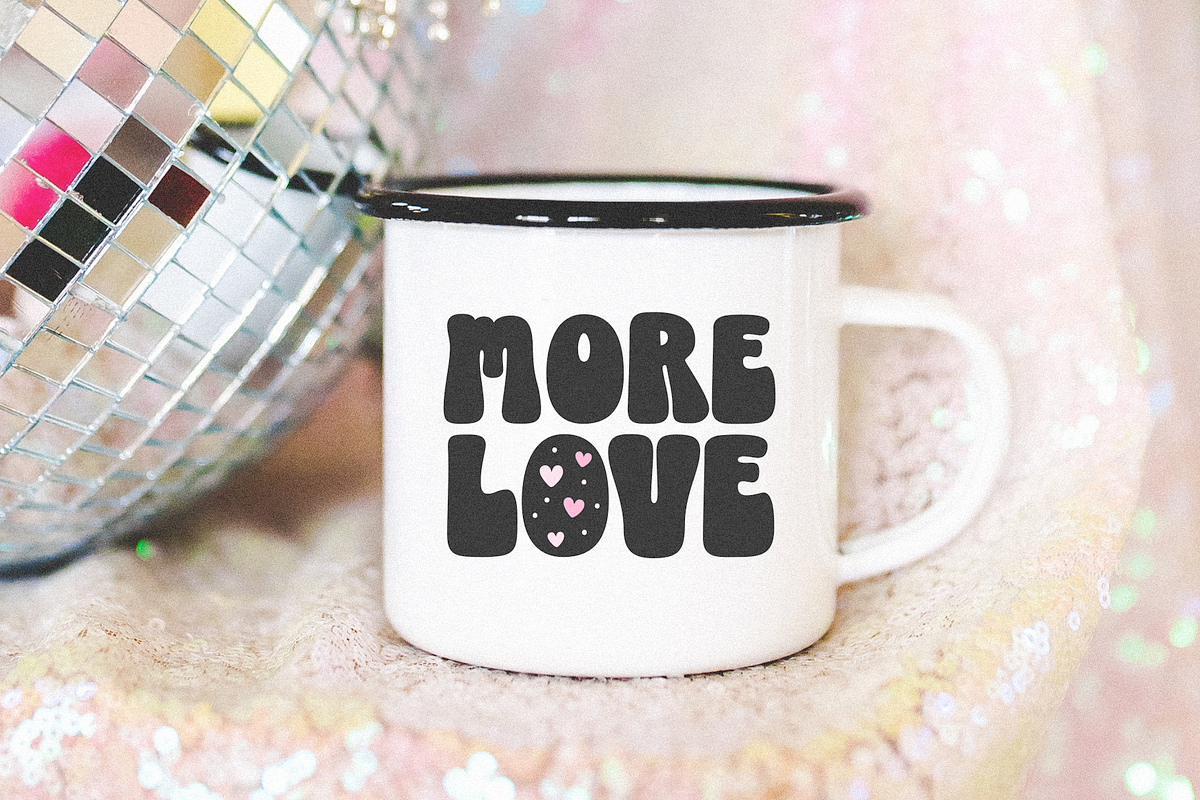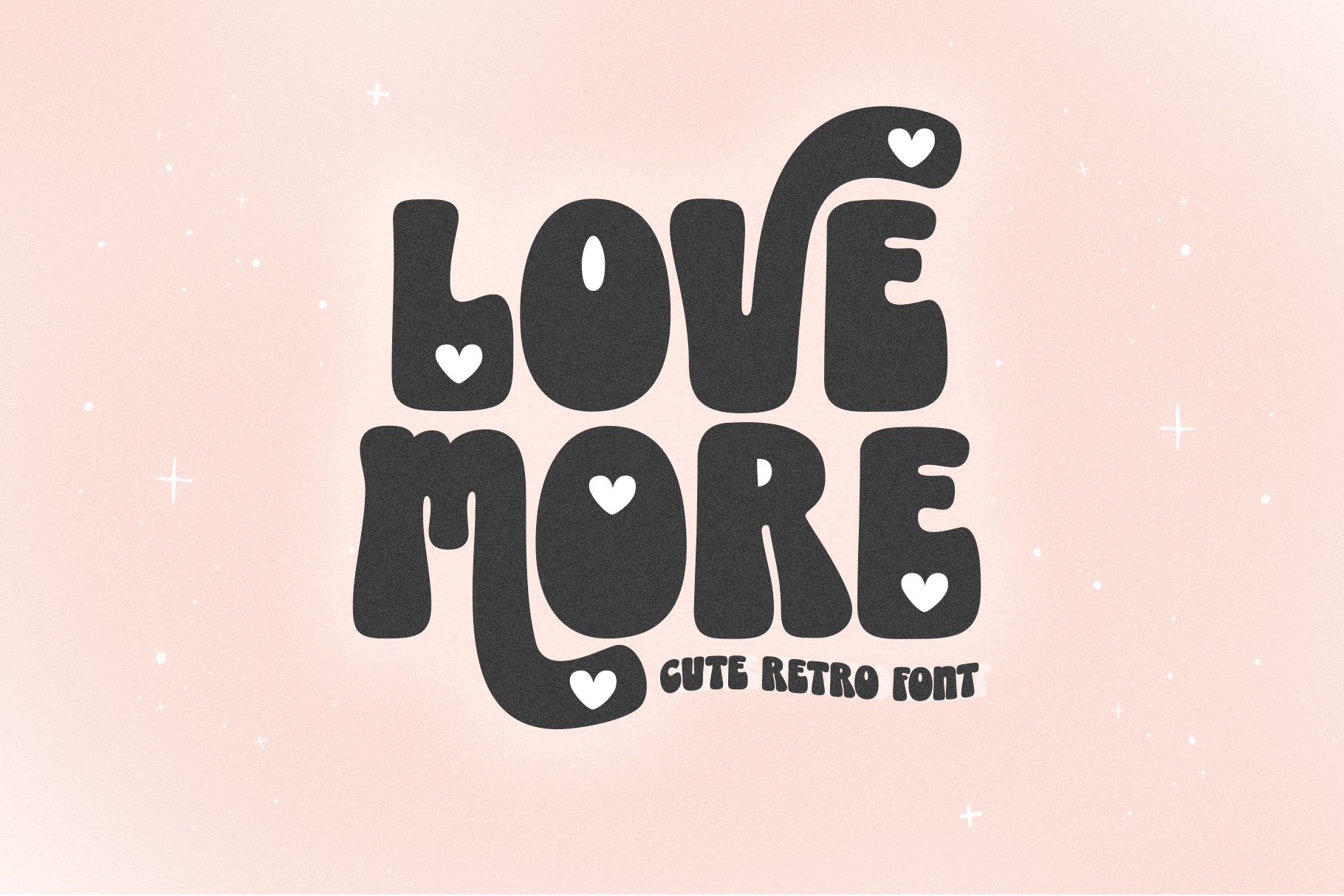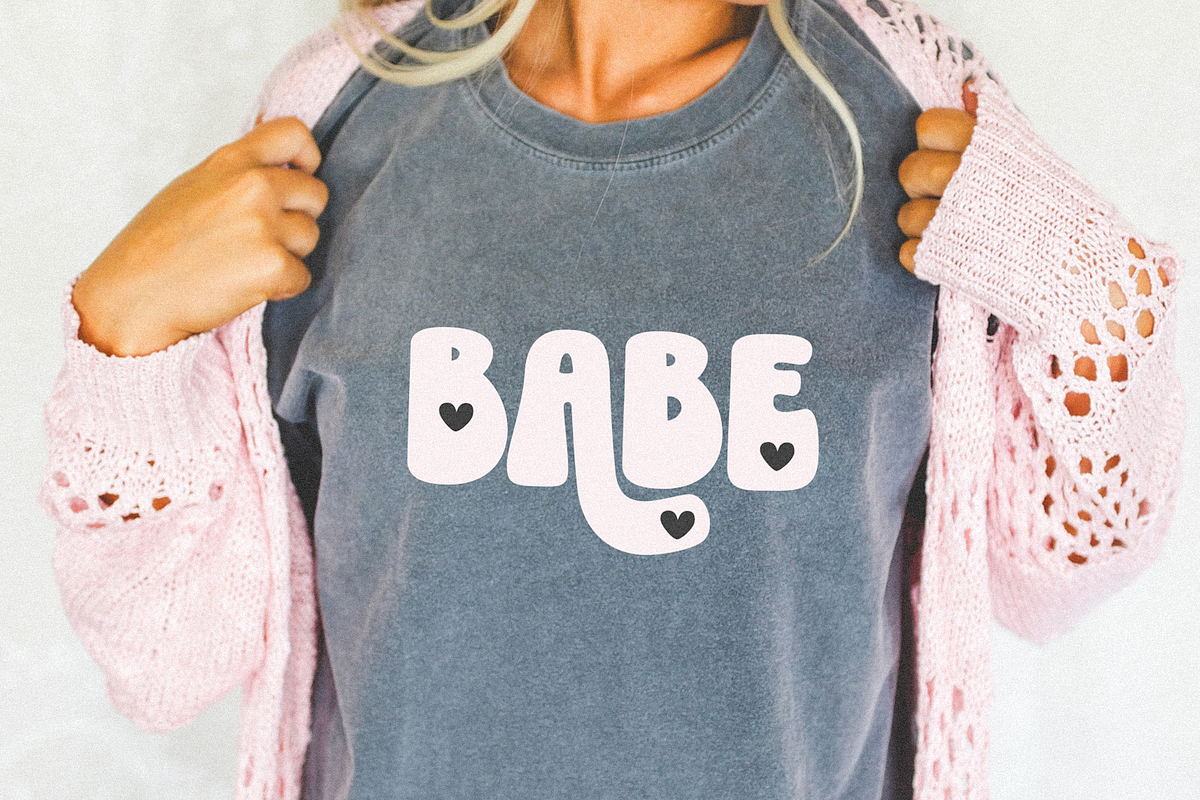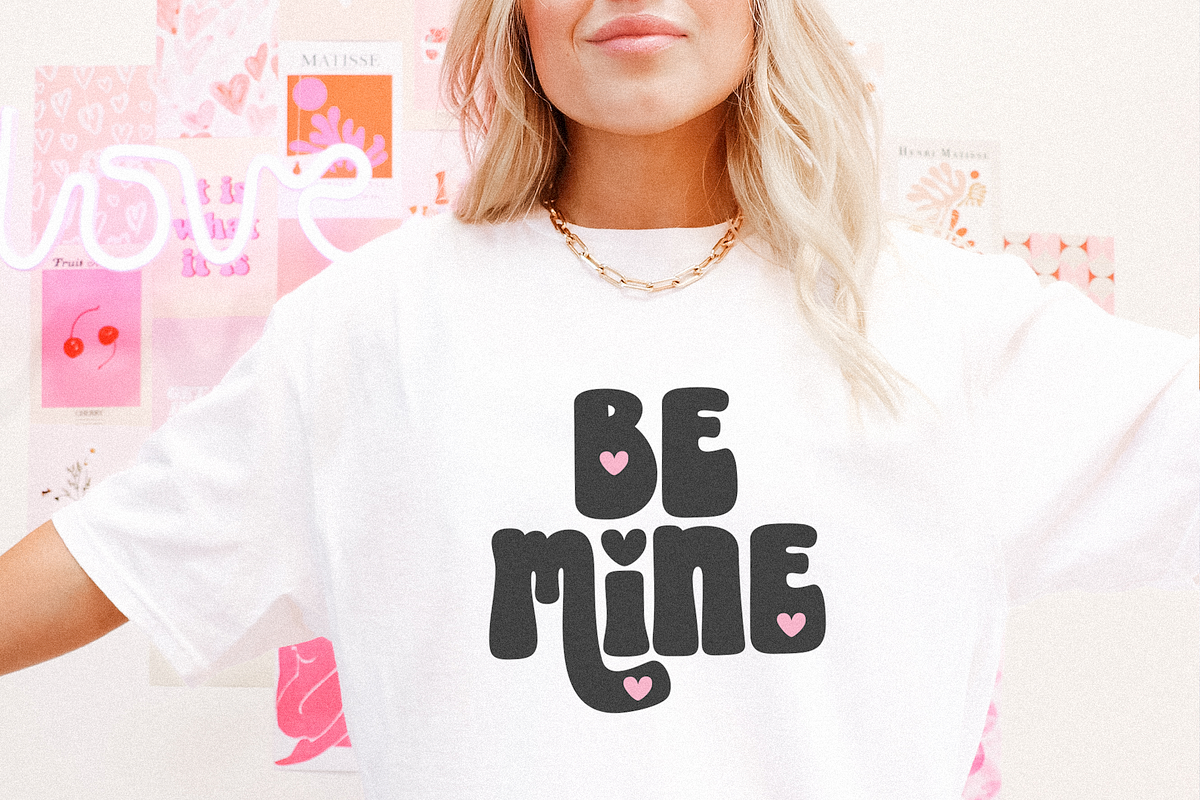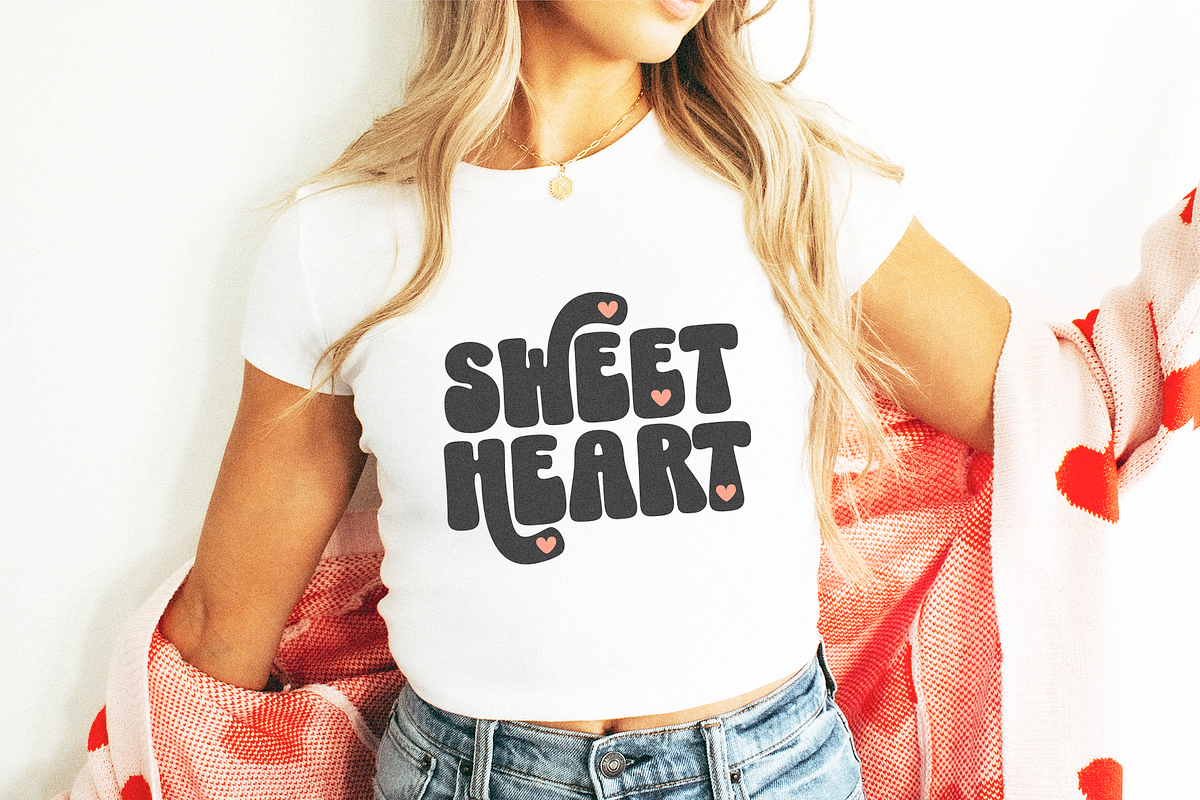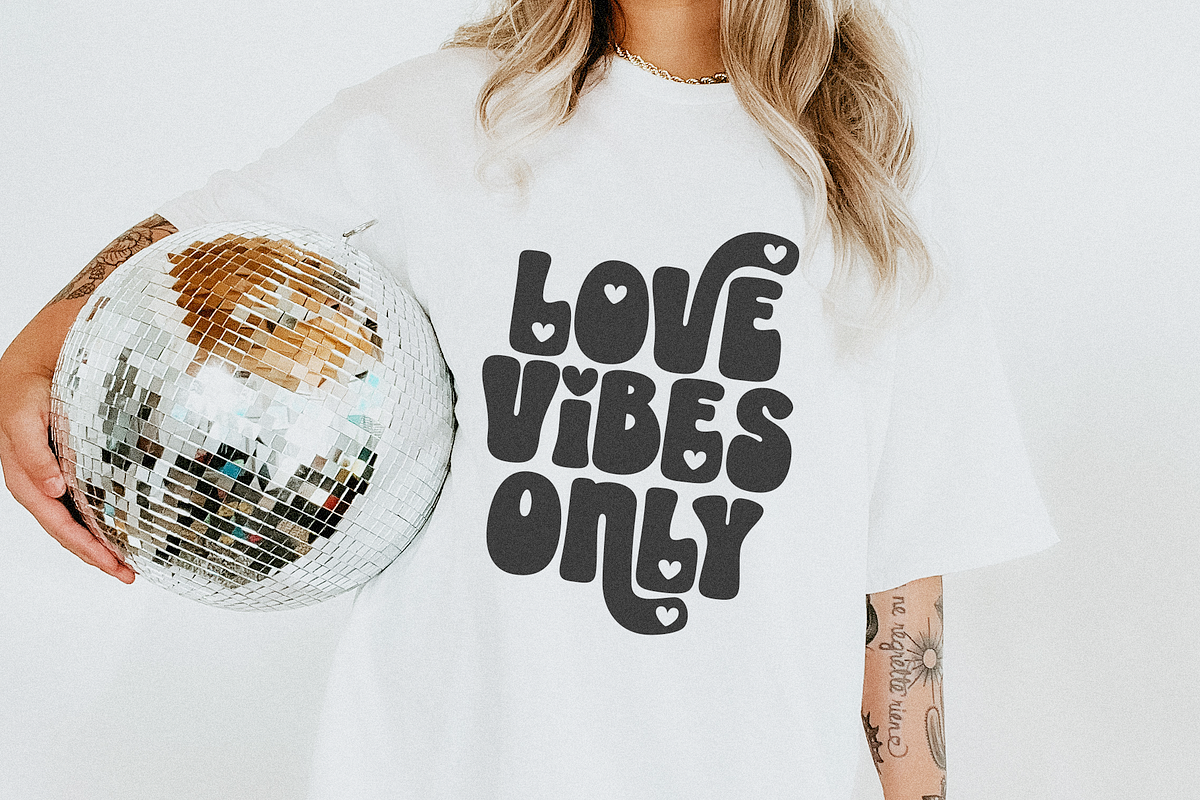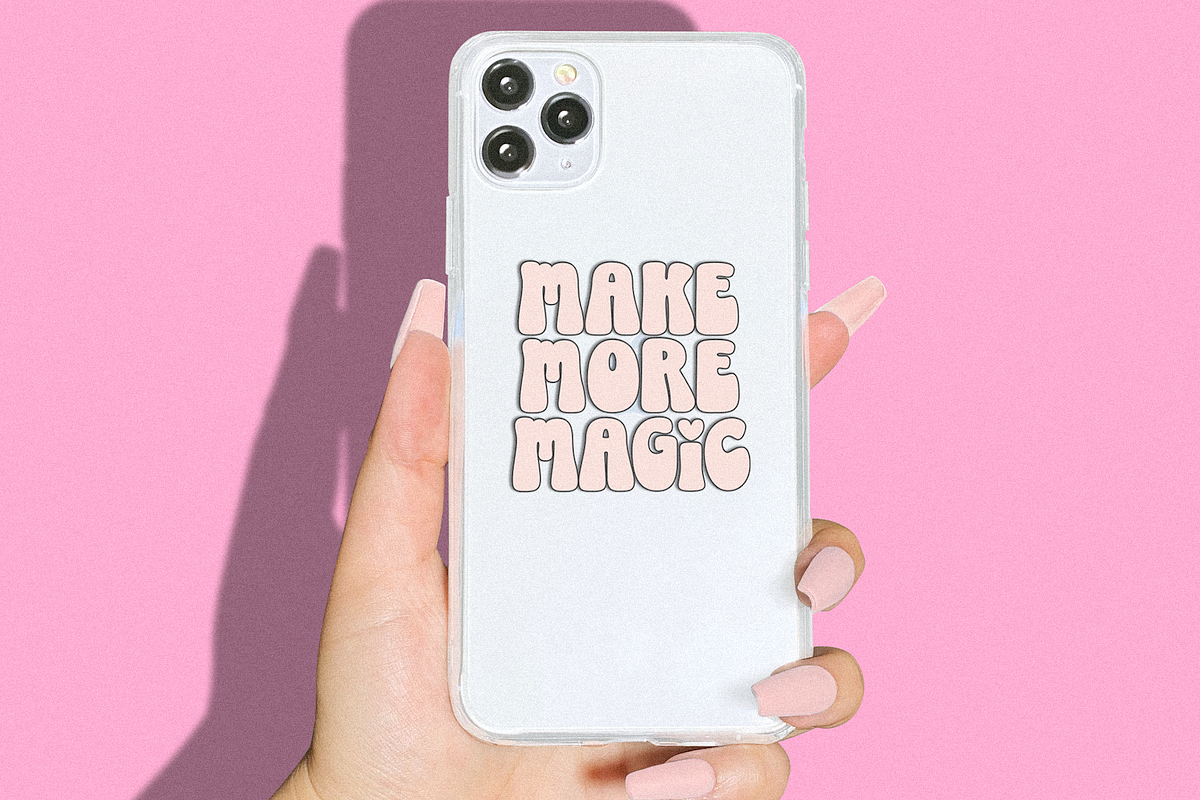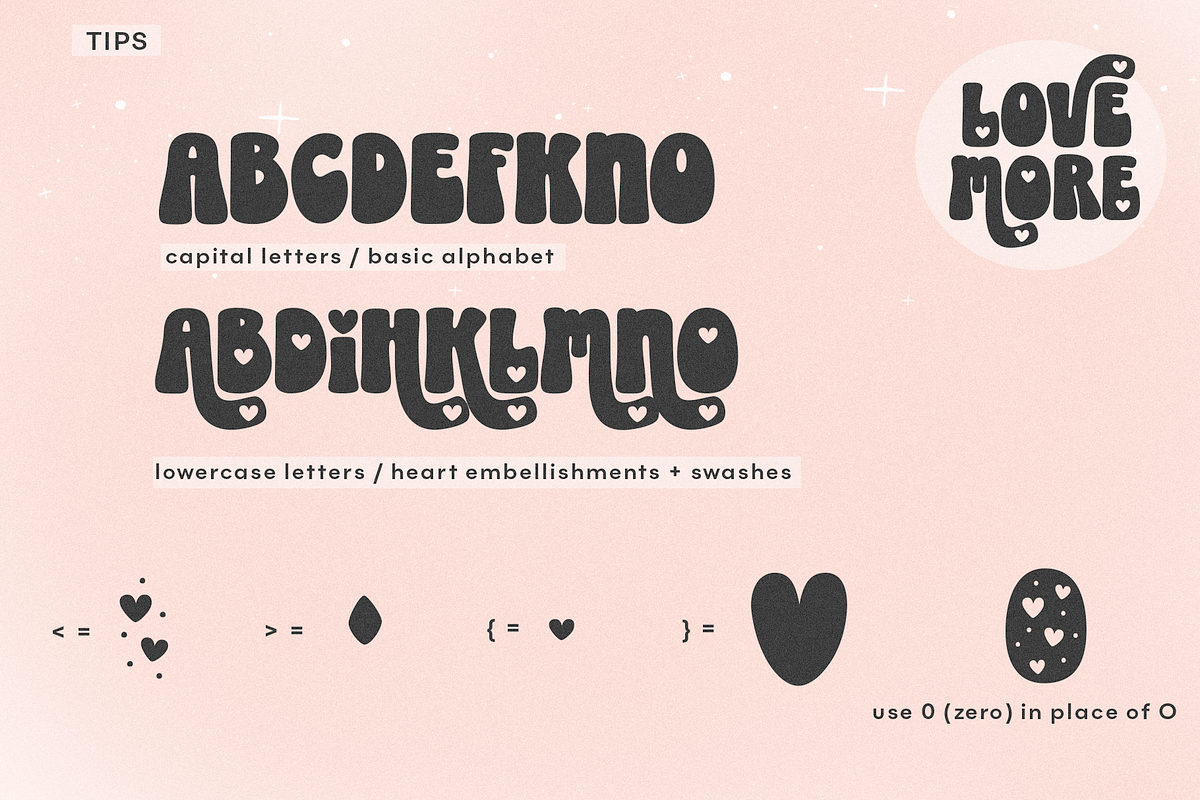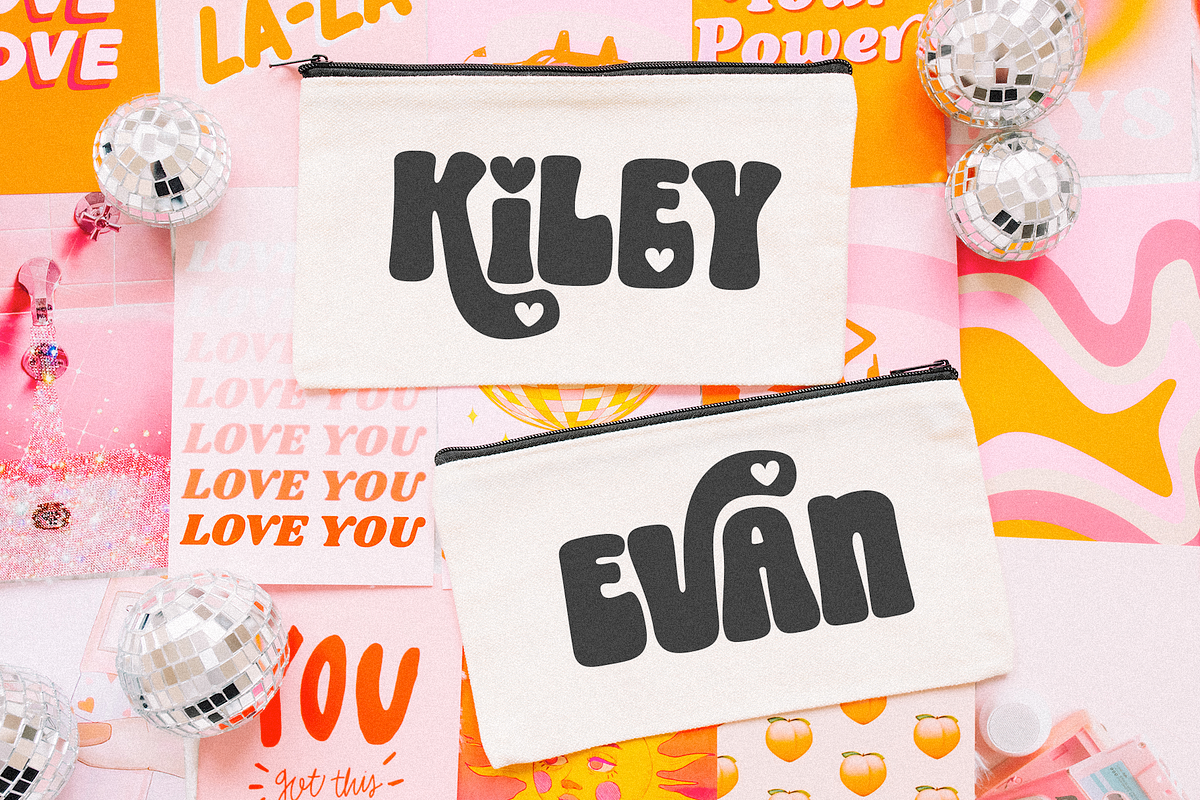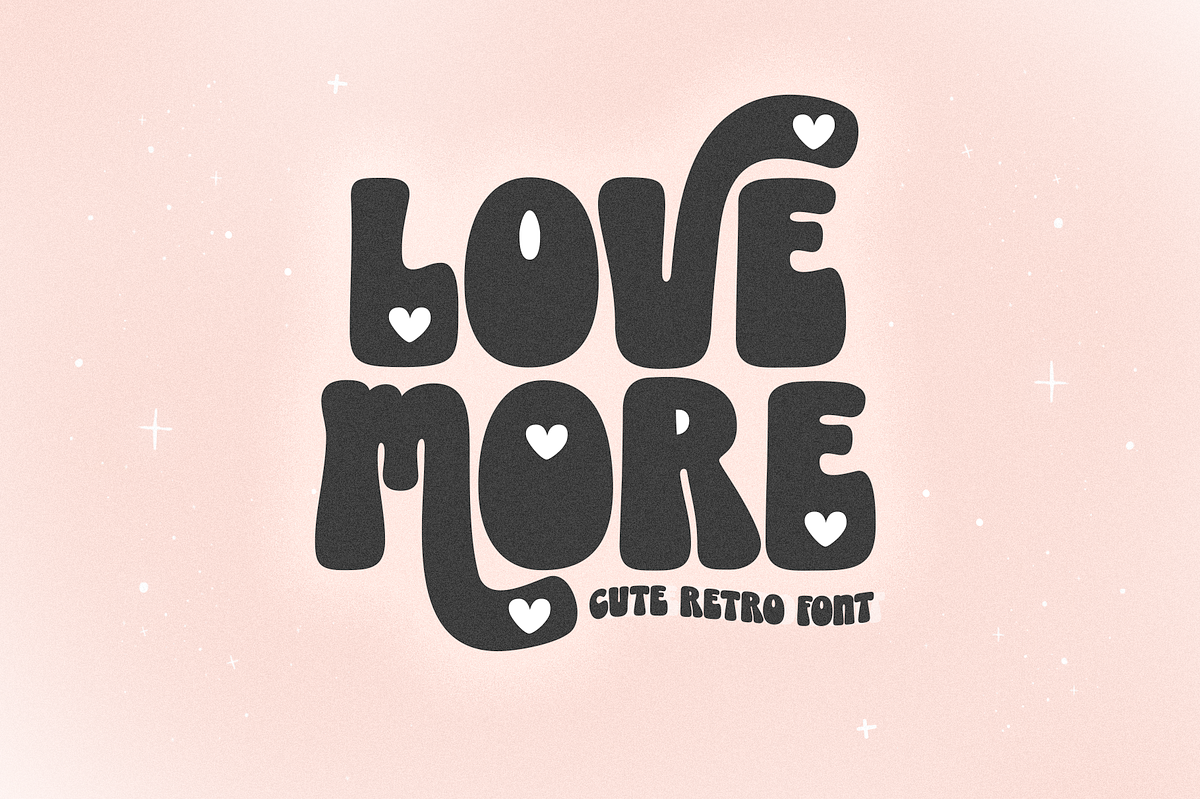
Love More | Retro Font
Love More is a hand-drawn font with a groovy feel!
This is an ALL CAPS font
** Use lowercase letters for swash letters and heart embellishments
This font is perfect for retro designs, Valentine's Day designs, logos, cards, shirts, vinyl, mugs, quotes and more!